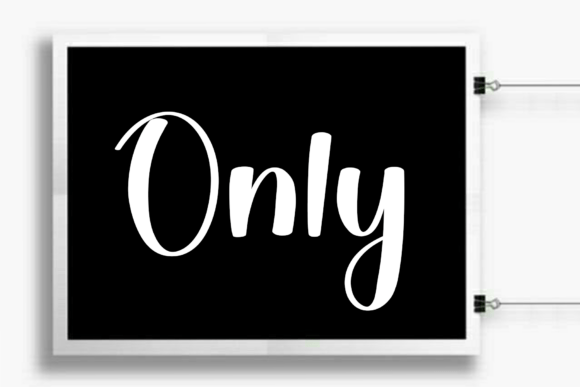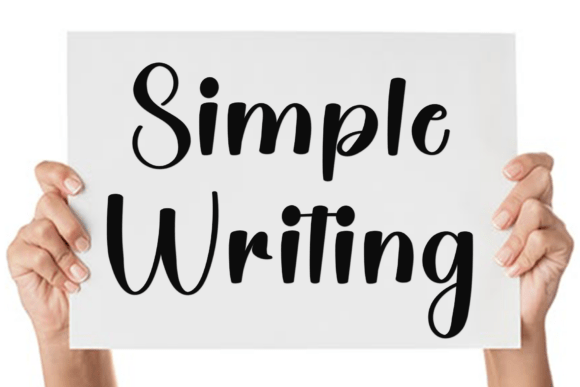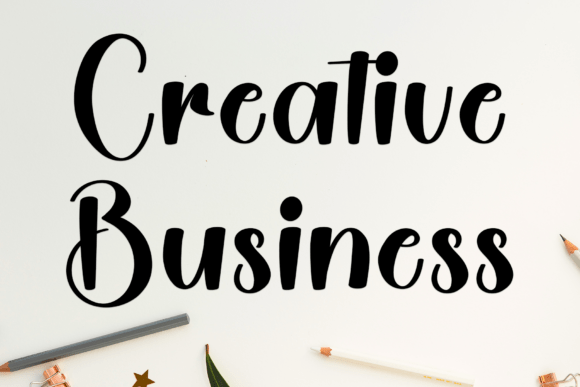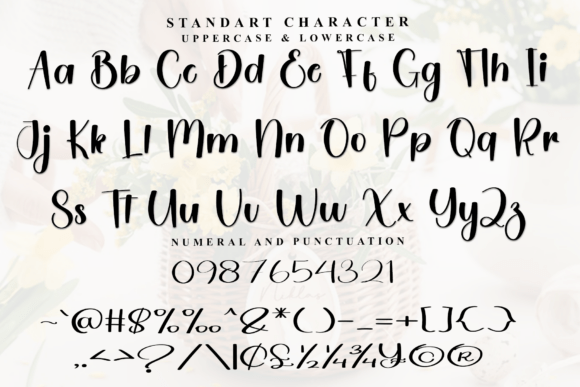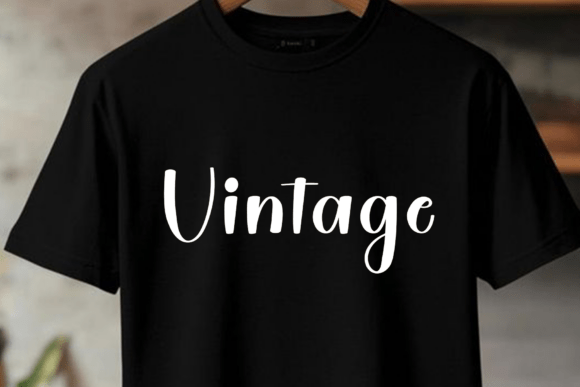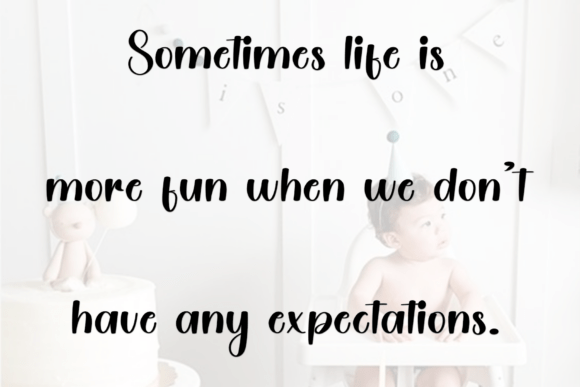
Introducing Autumn Wedding Font: Elevate Your Designs with a Touch of Elegance
As the seasons change and autumn leaves start to fall, designers and crafters are on the lookout for inspiration to add a touch of warmth and coziness to their creations. If you’re searching for a font that embodies the spirit of the season, look no further than Autumn Wedding Font. This beautiful and eye-catching font is designed with a soft, unique touch that is sure to make your designs stand out.
The Unique Charm of Autumn Wedding Font
Autumn Wedding Font boasts distinctive strokes that give it a special character, making it both meaningful and versatile for future use. Its unique design ensures that your projects will have a personal touch that sets them apart from the rest. Whether you’re working on a design project, crafting a handmade gift, or creating digital content, this font is perfect for adding a touch of elegance and sophistication.
Endless Possibilities with Various Characters
One of the standout features of Autumn Wedding Font is its wide range of characters. This means that you can experiment with different styles and combinations to find the perfect fit for your project. From invitations and greeting cards to posters and social media graphics, the possibilities are endless. The font’s versatility makes it an excellent choice for designers and crafters who like to push the boundaries of their creativity.
Perfect for a Wide Range of Products
The natural style of Autumn Wedding Font makes it an excellent choice for a wide range of products. From stationery and gift tags to logos and branding materials, this font can add a touch of warmth and personality to any design. Its earthy tones and organic feel make it particularly well-suited for projects that require a natural, effortless look.
Why Choose Autumn Wedding Font?
So why choose Autumn Wedding Font for your next project? Here are just a few reasons why this font stands out:
- Unique and eye-catching design: Autumn Wedding Font is designed to grab attention and make a lasting impression.
- Versatile and compatible: The font is compatible with a range of applications and can be used for a variety of projects.
- Natural and earthy feel: The font’s natural style makes it perfect for projects that require a organic, effortless look.
- Wide range of characters: Experiment with different styles and combinations to find the perfect fit for your project.
Tips for Using Autumn Wedding Font
To get the most out of Autumn Wedding Font, here are a few tips to keep in mind:
- Experiment with different sizes and styles: Play around with different font sizes and styles to find the perfect combination for your project.
- Pair with complementary fonts: Combine Autumn Wedding Font with other fonts to create a unique and visually appealing design.
- Use for headlines and titles: The font’s bold and eye-catching design makes it perfect for headlines and titles.
- Add a personal touch: Use the font to add a personal touch to your designs, making them more relatable and engaging.
Autumn Wedding Font is a beautiful and versatile font that is perfect for designers and crafters looking to add a touch of elegance and sophistication to their creations. With its unique design, wide range of characters, and seamless compatibility, this font is sure to become a staple in your design toolkit. Whether you’re working on a design project, crafting a handmade gift, or creating digital content, Autumn Wedding Font is the perfect choice for adding a touch of warmth and personality to your work.